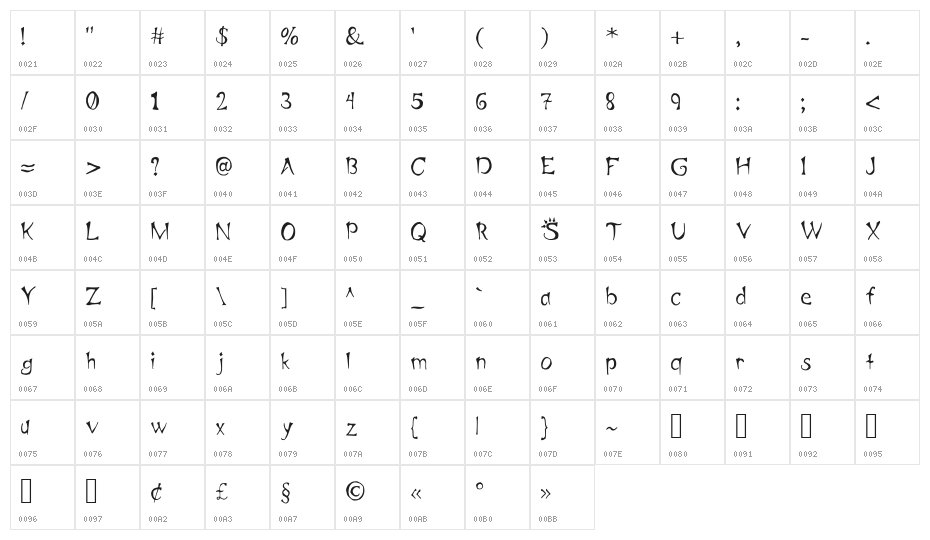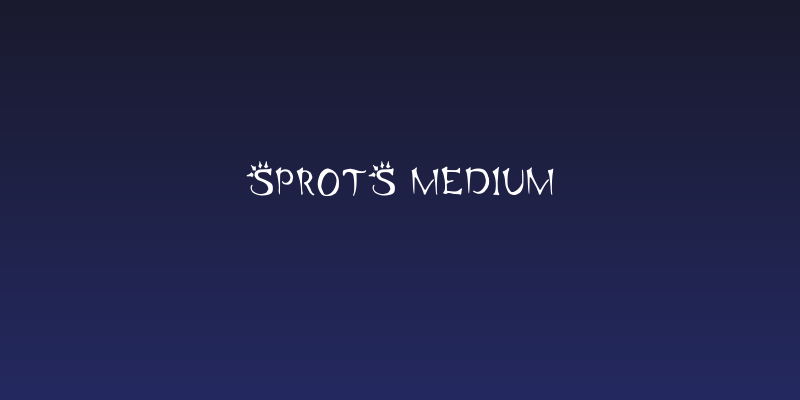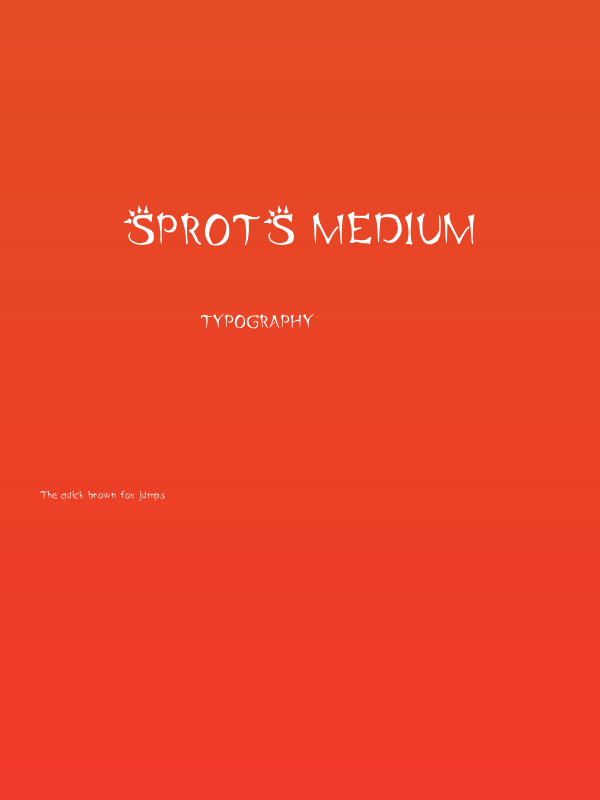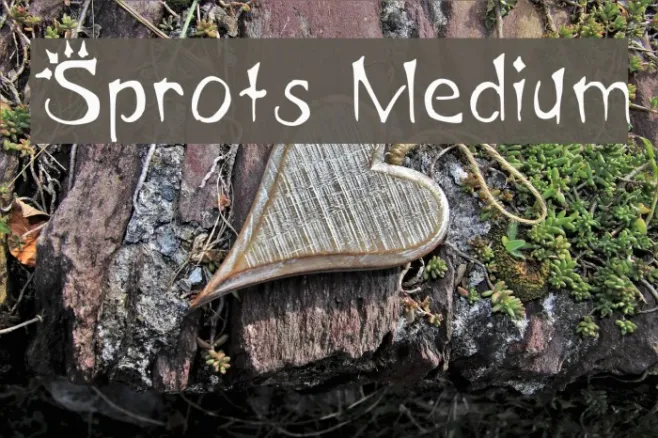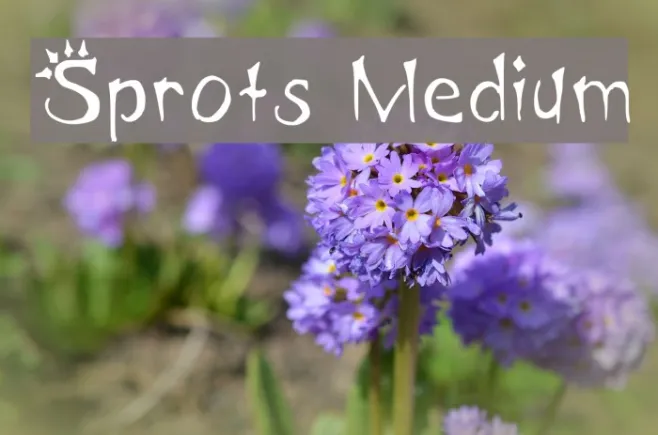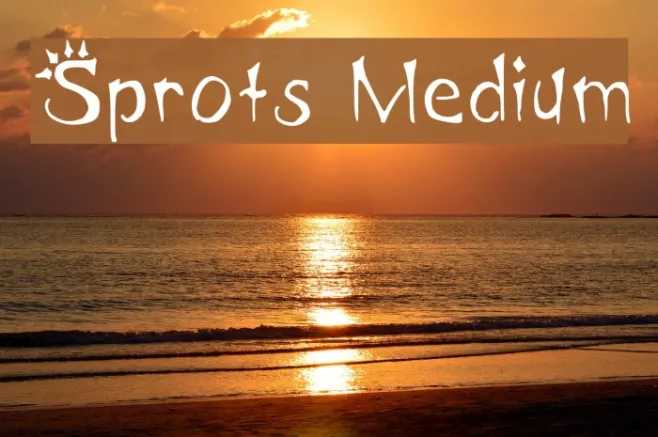
Sprots Medium Font
Sprots Medium Description
This font features a unique and artistic style with a hand-drawn appearance. The characters exhibit irregular shapes and varying stroke widths, giving it a whimsical and playful feel. The uppercase letters are bold and slightly uneven, while the lowercase letters maintain a consistent yet quirky design. The numerals are distinct and match the overall style, adding to the font's charm. Special characters are creatively designed, enhancing the font's decorative nature. This font is perfect for projects that require a touch of creativity and individuality.